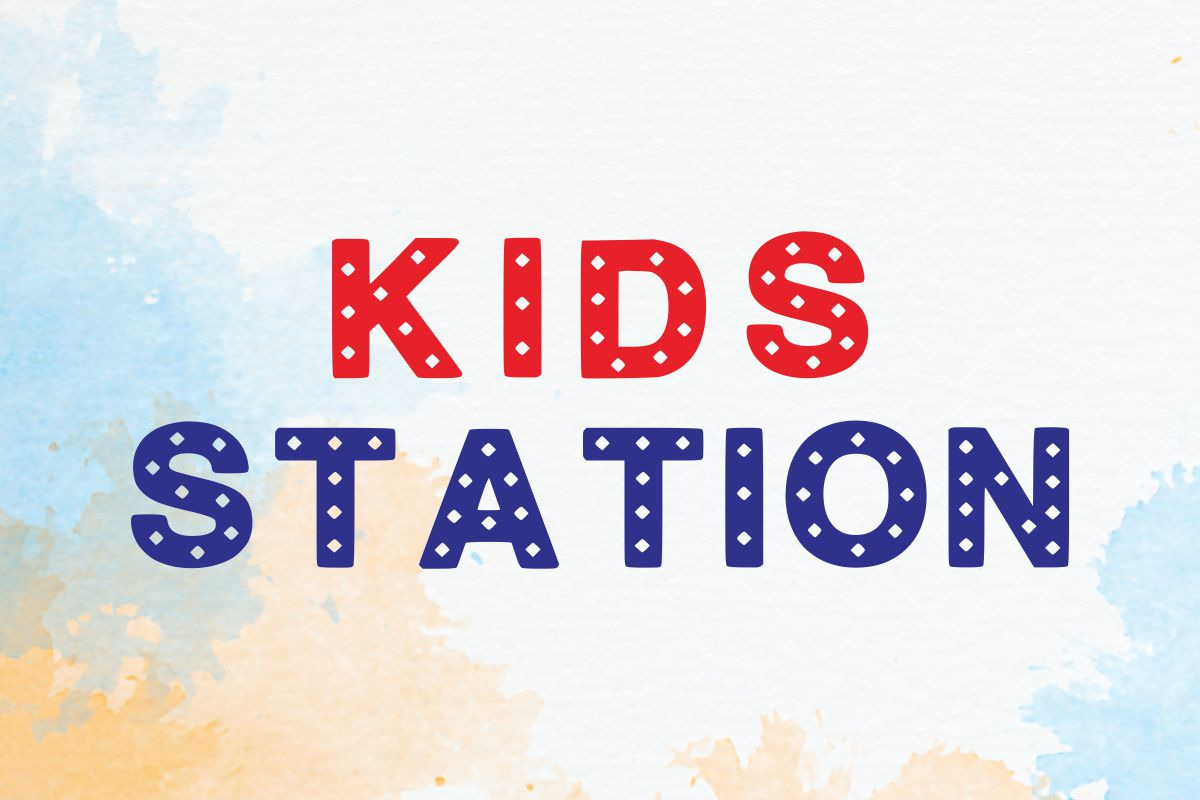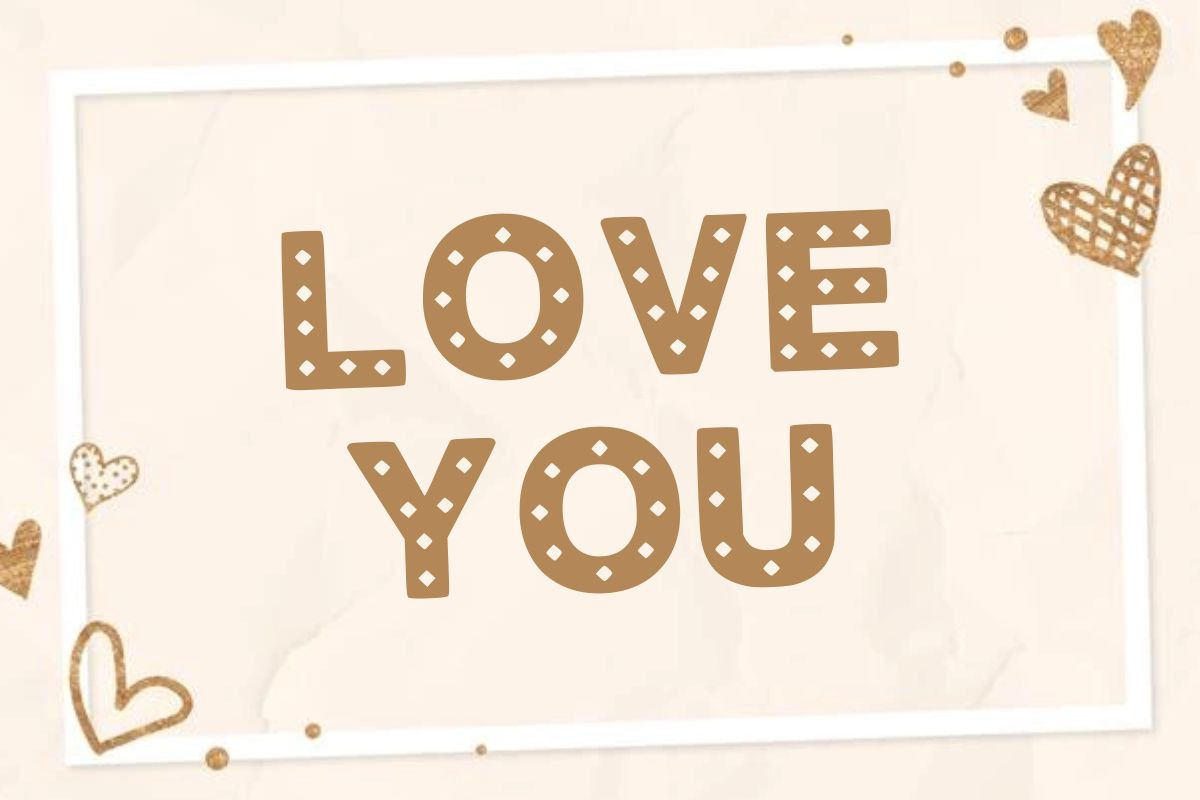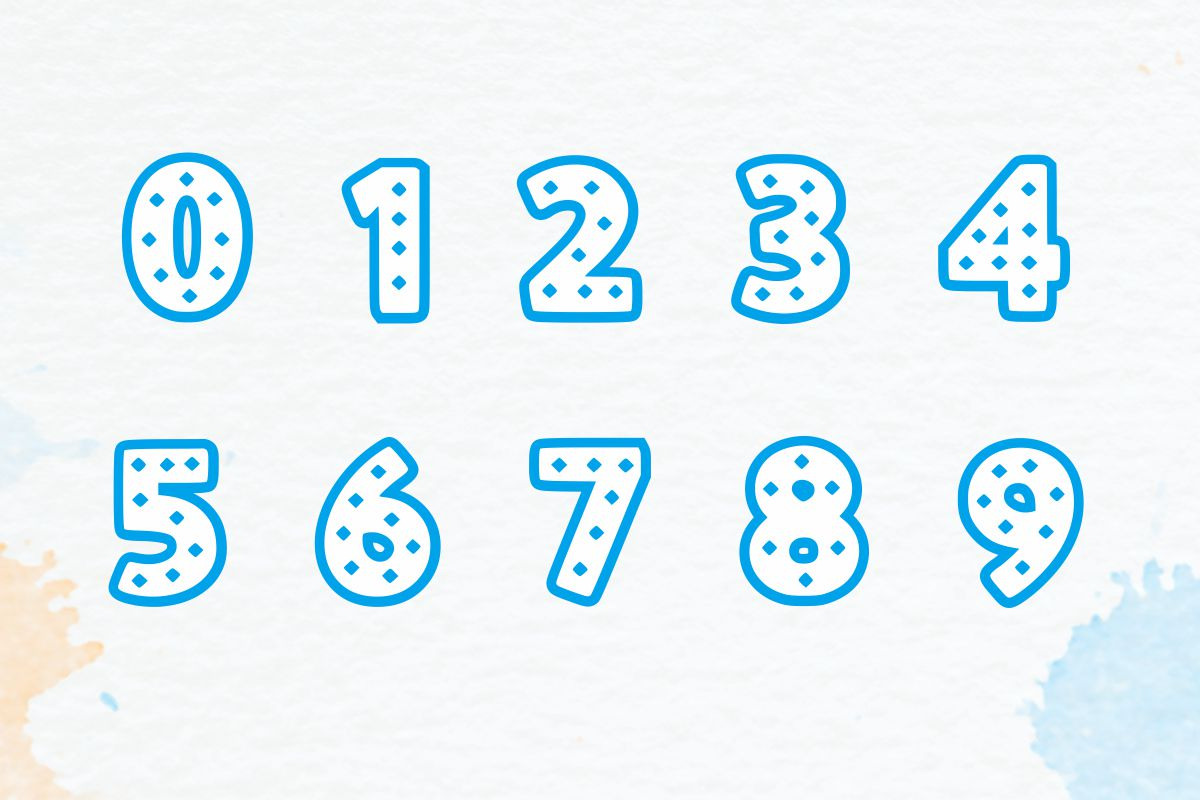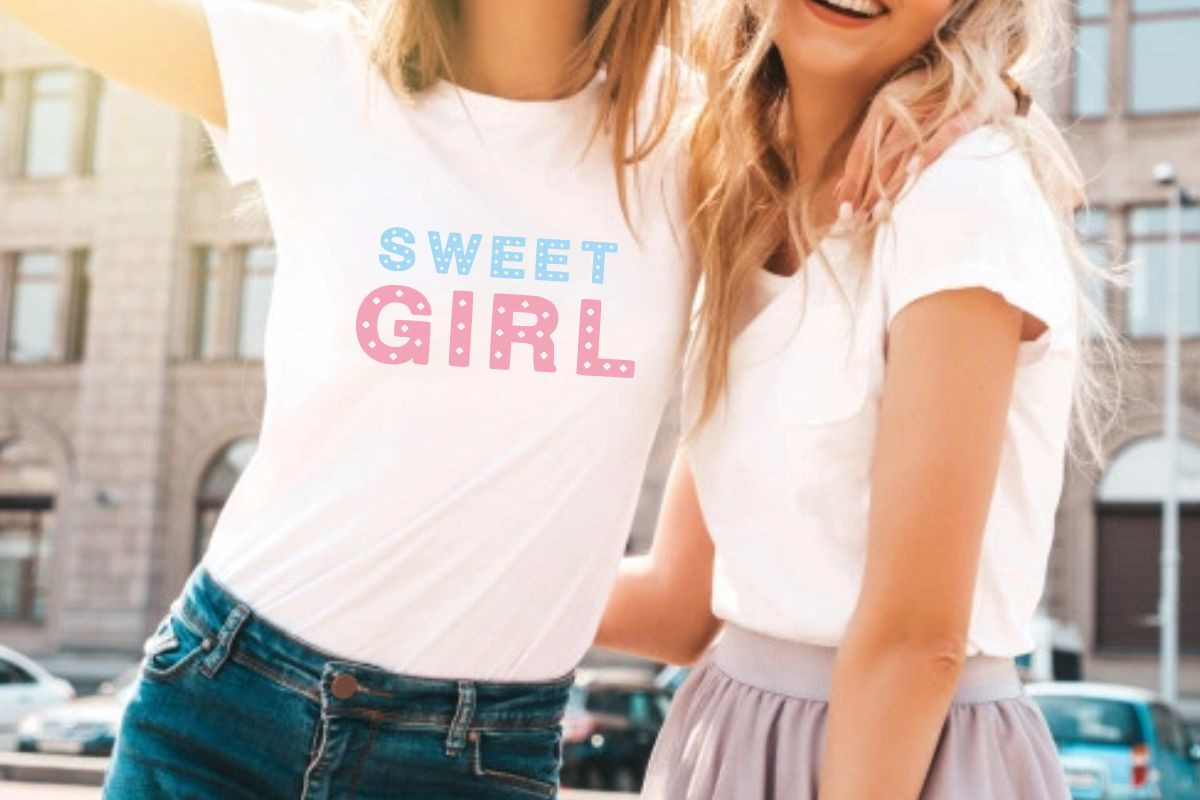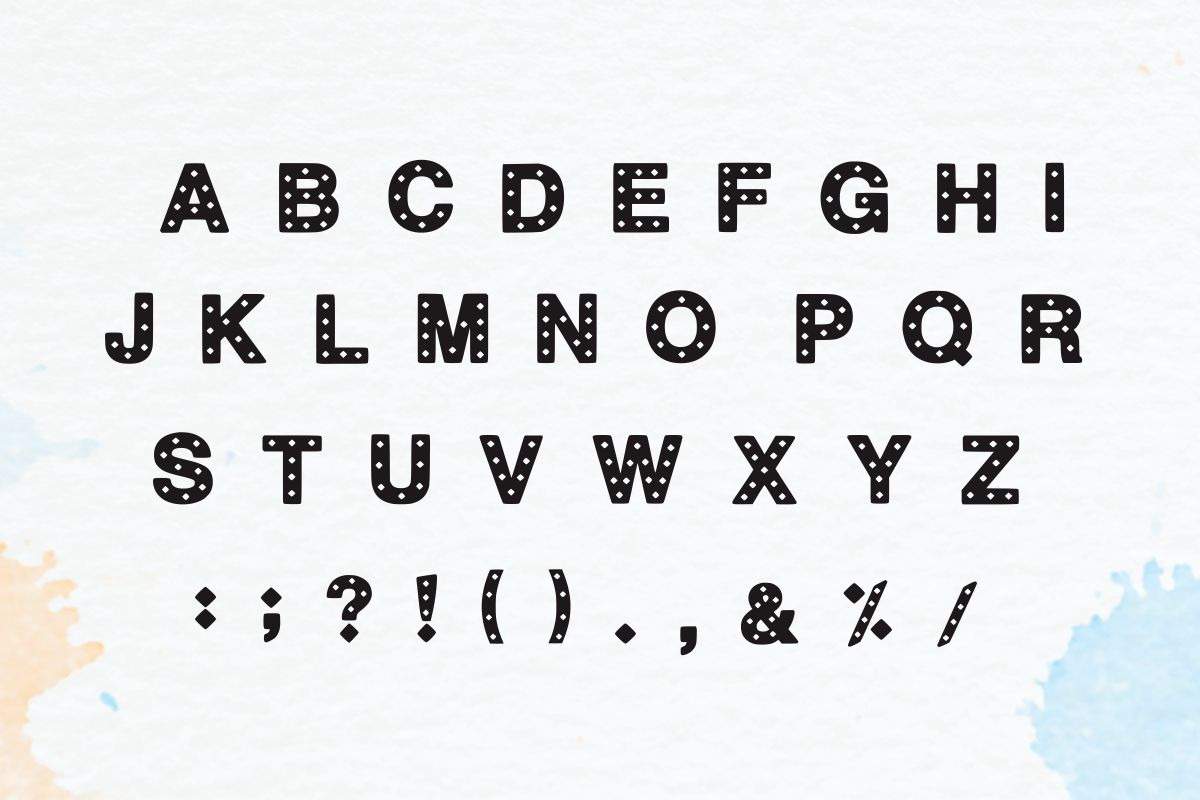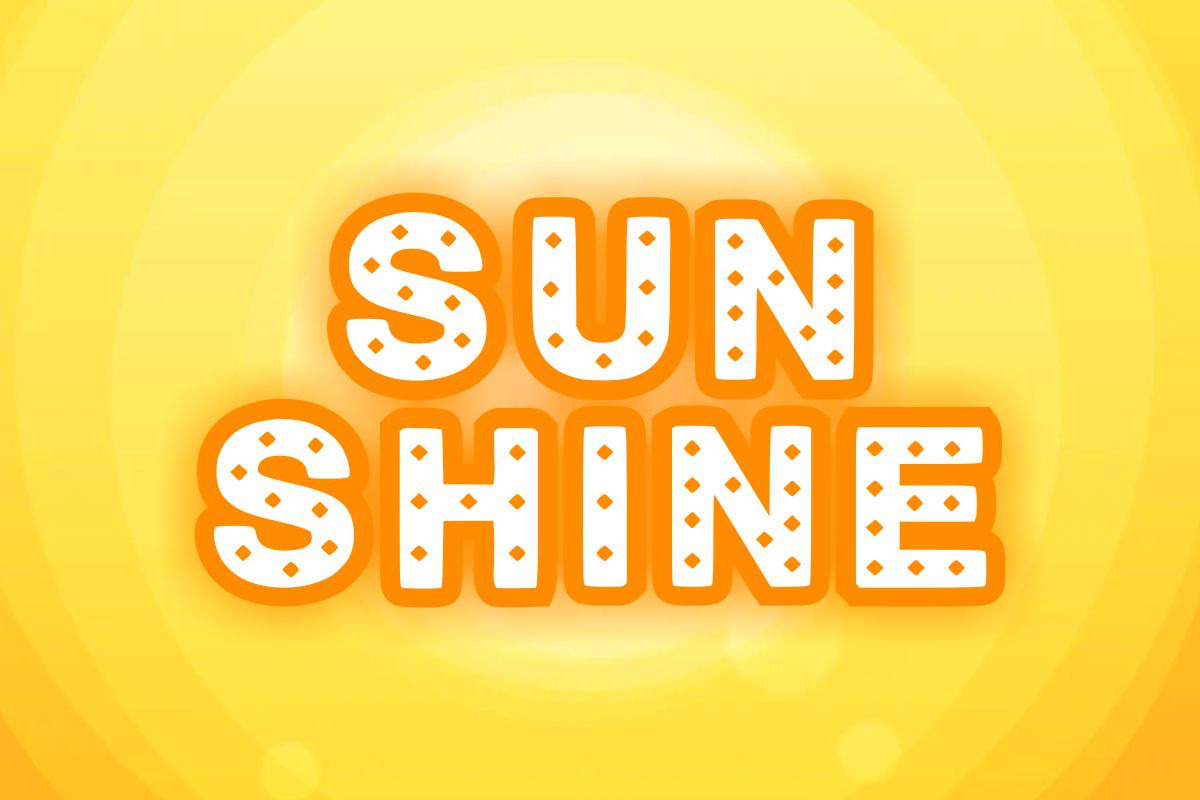
Dots Diamond
Dots Diamond is a polkadot-decorated display font. This easy-to-read typeface conveys impeccable friendliness, and it is perfect for kids. Whether you’re using it for crafts, digital design, presentations, or greeting cards, this font has the potential to become your favorite go-to font, no matter the occasion!